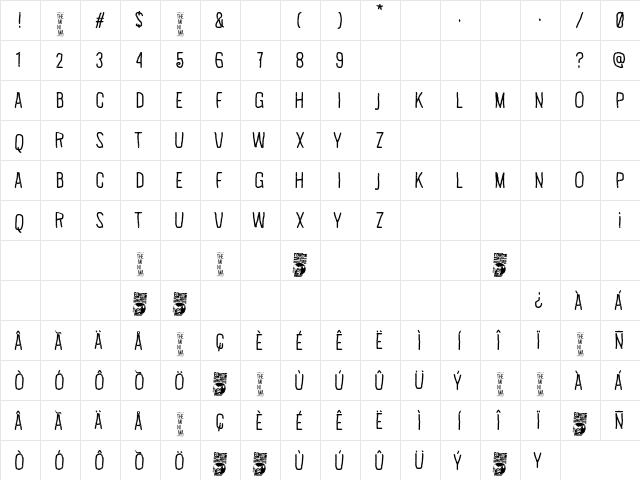
The Minima Regular
| Designer | Woodcutter Manero |
Design Context for The Minima Typeface
The Minima offers clean, dependable letterforms without strong stylistic allegiance, making it a practical choice for designers who need flexibility.